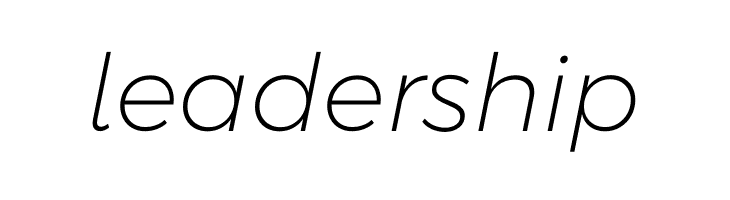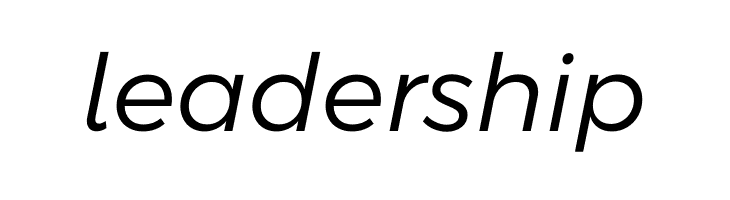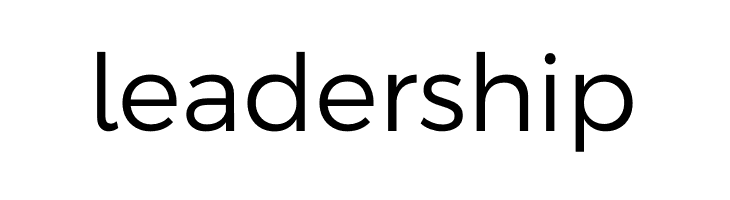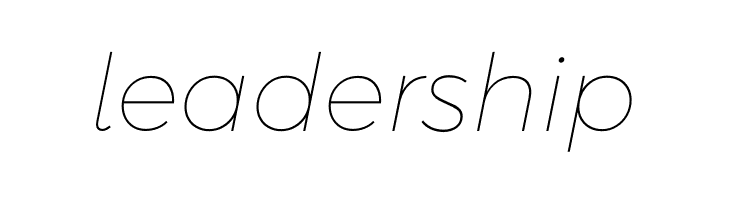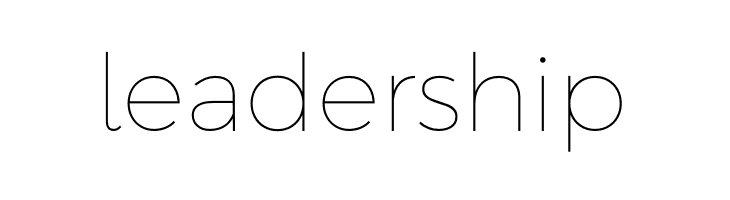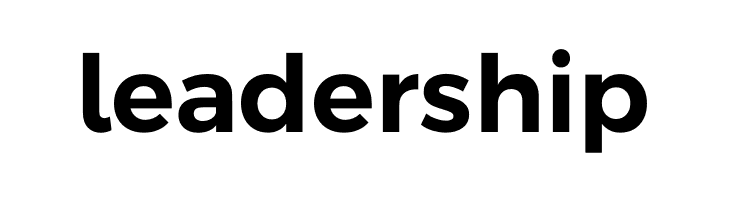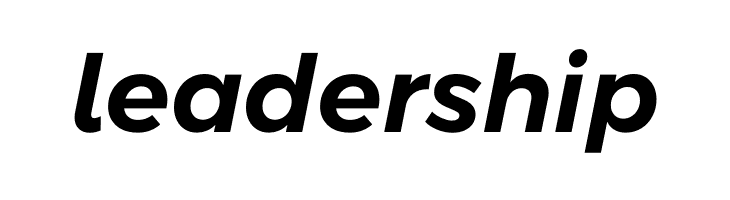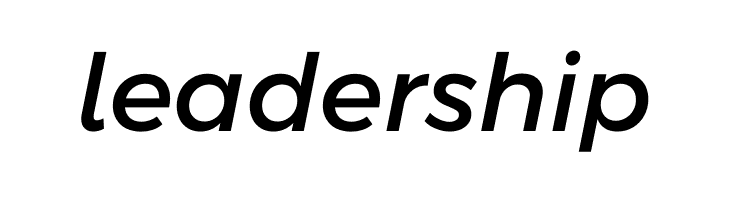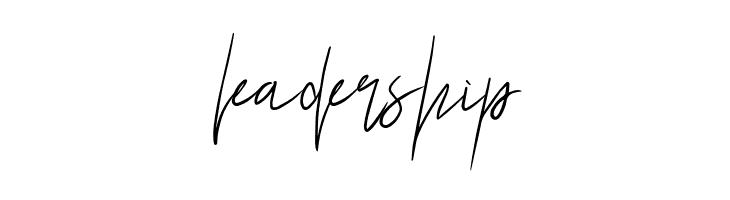
A sleek, modern sans-serif font with an extra light, italic style.
A modern, italic sans-serif font with clean lines and balanced spacing.
A modern, light sans-serif font with clean lines and excellent readability.
A modern, light, italic sans-serif font with clean lines and low contrast.
A modern, geometric sans-serif font with balanced proportions and clear numerals.
A modern, medium-weight sans-serif italic font with clean lines and a slightly condensed form.
A modern sans-serif font with a semi-bold weight, offering clarity and professionalism.
A sleek, modern semi-bold italic typeface with clean lines and smooth curves.
A thin, modern sans-serif font with a clean and minimalist design.
A modern, thin, italic sans-serif font with a sleek and elegant style.
A bold, hand-drawn font with sharp edges and an energetic style.
A bold, jagged, and italicized font with a graffiti-like, hand-drawn style.
A bold, modern font with a geometric and futuristic design.
A bold, dynamic script font with a fluid, handwritten style.
A bold, flowing script font with dynamic, interconnected letters.
A bold, calligraphic font with dynamic curves and ornate flourishes.
A bold, medieval-inspired font with sharp serifs and a Gothic flair.
A modern, elegant font with high contrast and refined style.
A graceful and fluid script font with a handwritten style.
A bold, playful font with rounded edges and a chunky, retro style.
A bold, modern sans-serif font with clean lines and geometric structure.
A modern, narrow sans-serif font with a clean and professional look.
An elegant, flowing script font with a natural handwriting style.
A modern, elegant script font with flowing, cursive letters.
A bold, decorative font with intricate, gothic-inspired details.
A whimsical, cursive-like font with flowing, artistic strokes.
A modern, elegant serif font with thin, elongated strokes and geometric influences.
A flowing, cursive script with elegant loops and swashes.
A flowing, elegant cursive script with interconnected letters and bold uppercase characters.
A bold, angular font with a modern and edgy style.
A playful, hand-drawn font with dynamic, irregular strokes.
A bold, playful font with a handwritten aesthetic and dynamic character shapes.
A bold, italicized font with a dynamic, handwritten style.
A playful, hand-drawn font with varied stroke thickness and a whimsical style.
A dynamic, italicized, and condensed font with a modern, energetic style.